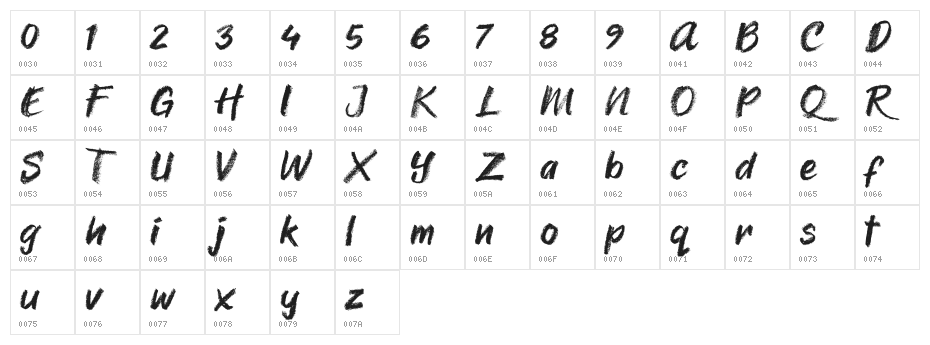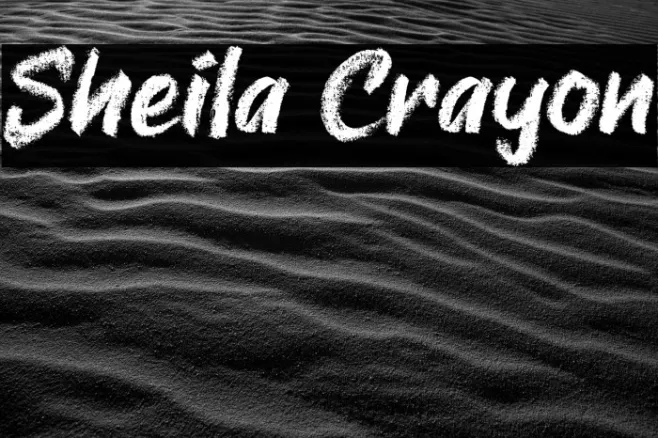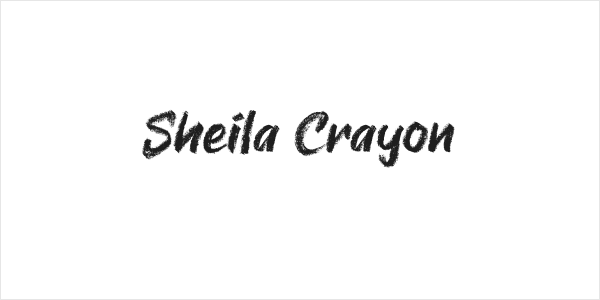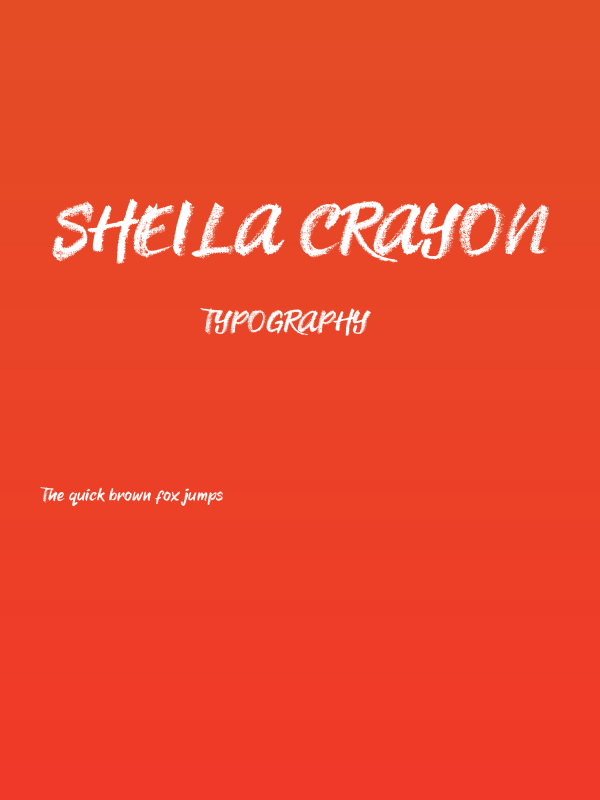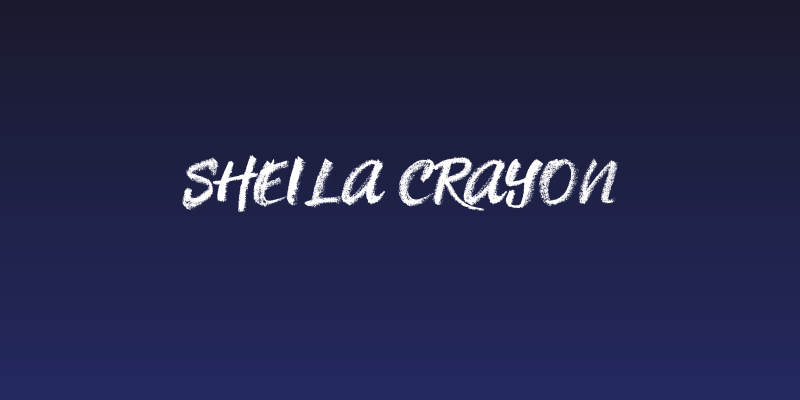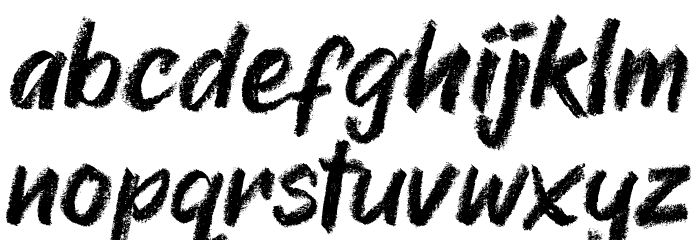
Sheila Crayon Font
Sheila Crayon Description
This font exudes a playful and artistic vibe, reminiscent of hand-drawn crayon strokes. The letters are bold and expressive, with a textured appearance that mimics the uneven application of crayon on paper. Each character features a unique, slightly rough edge, adding to the handcrafted feel. The uppercase and lowercase letters maintain a consistent style, with a slight slant that gives a dynamic and lively impression. The numbers and special characters follow the same design principles, ensuring a cohesive look across all elements. This font is perfect for projects that require a touch of creativity and informality.
| Use Case | Headlines, Logos, Artistic projects |
| Proposed Projects | Ideal for children's book covers, playful branding, art projects, and informal invitations. |